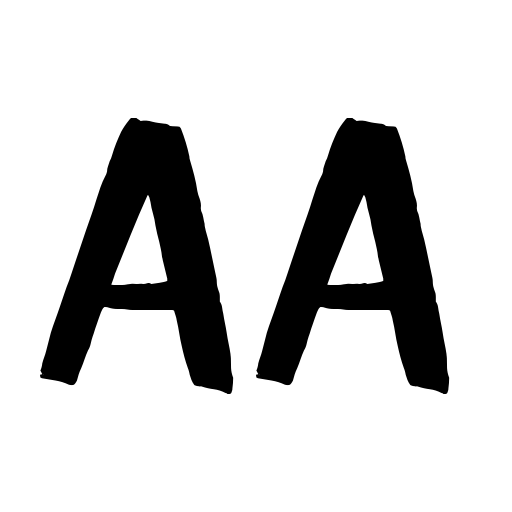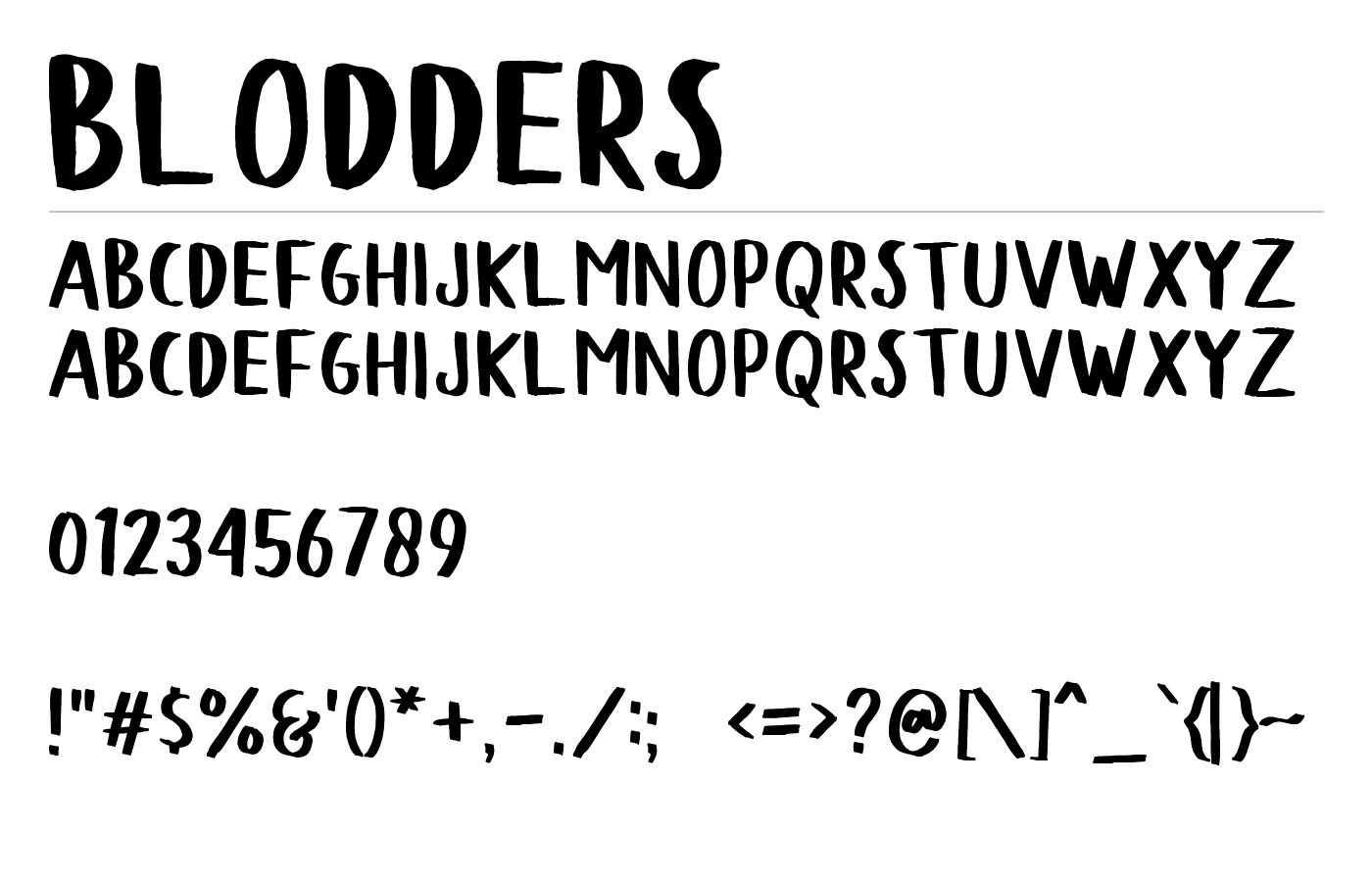
Blodders is a playful and informal sans serif font with a hand-drawn feel, characterized by bold, irregular strokes and slightly condensed letterforms. Its lively and quirky style, combined with uneven edges and unique shapes, makes it perfect for creative projects, children's materials, and casual branding that aims to convey friendliness and approachability. This font works best in headlines and display use where a fun, energetic vibe is desired.
Blodders Font
About Blodders Font